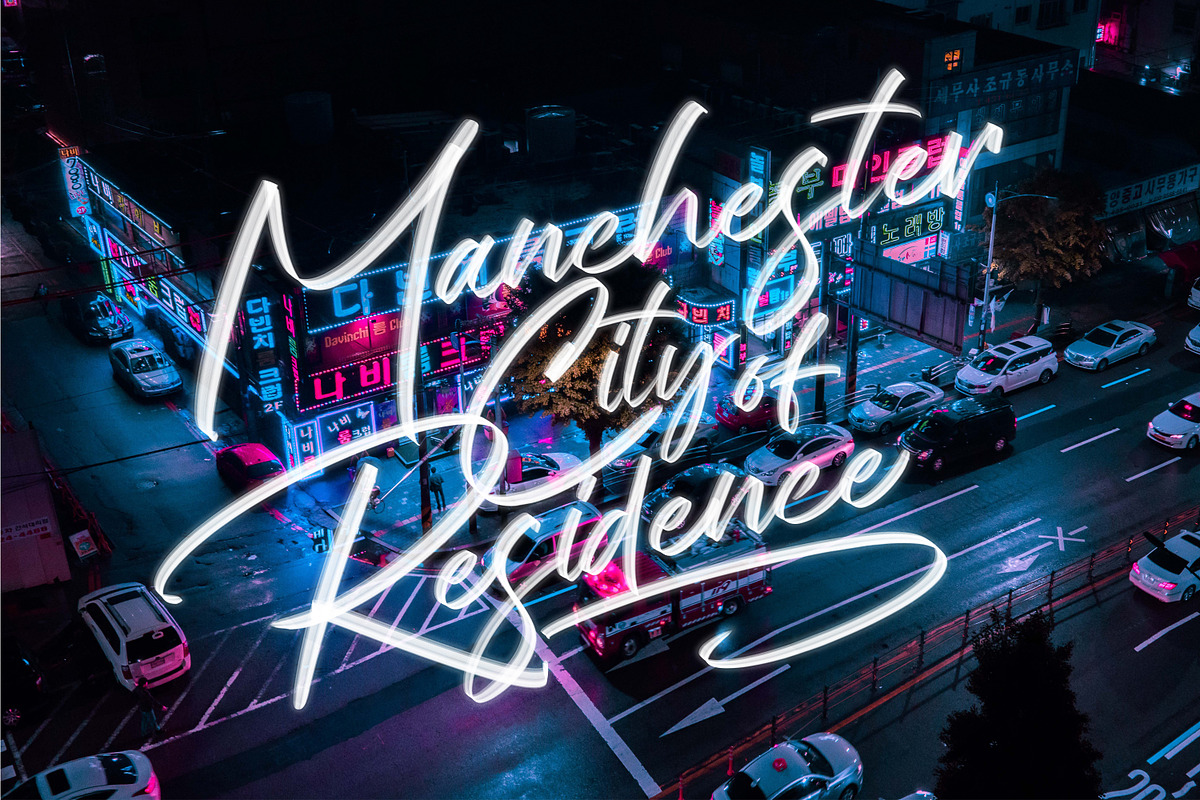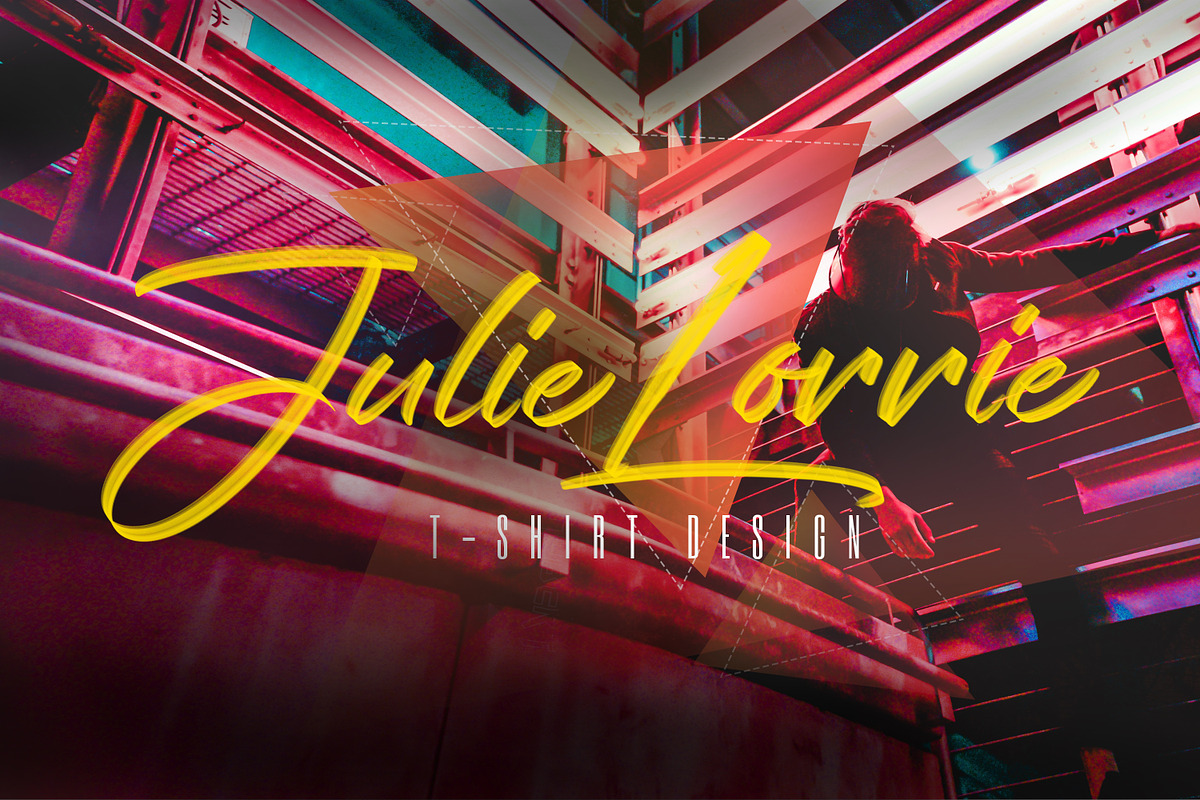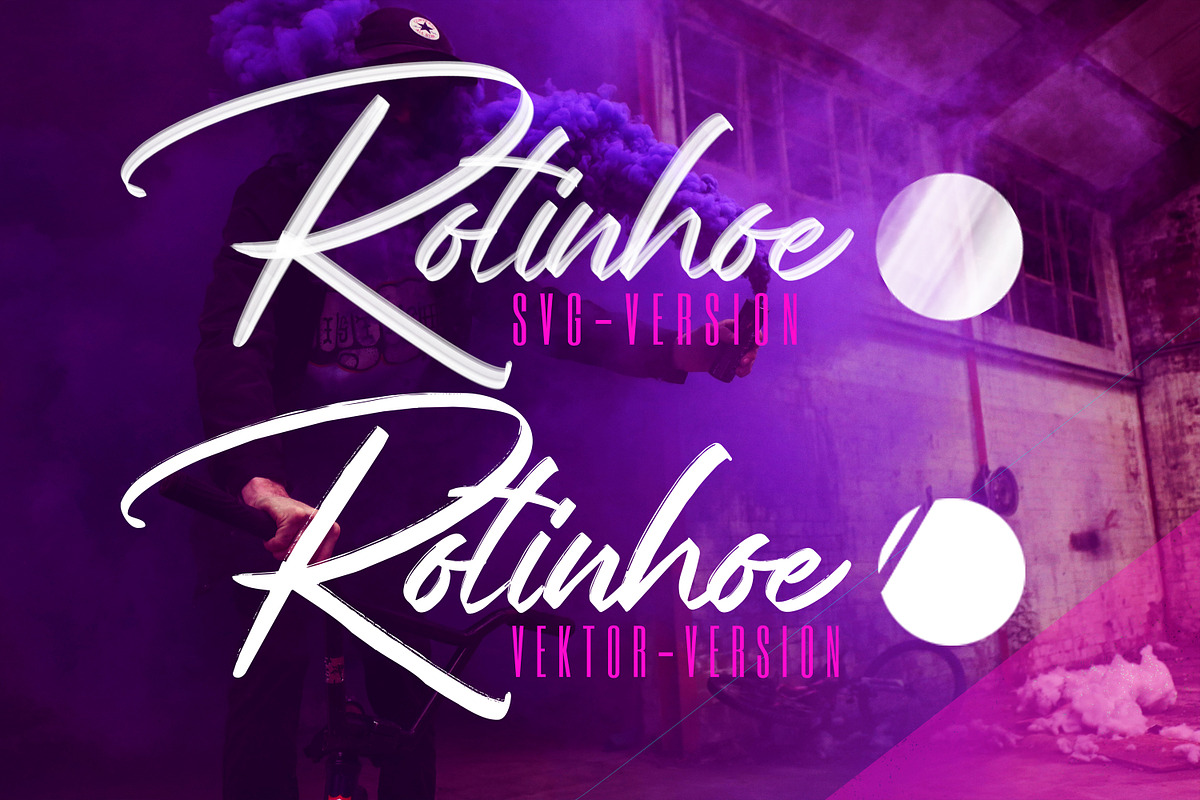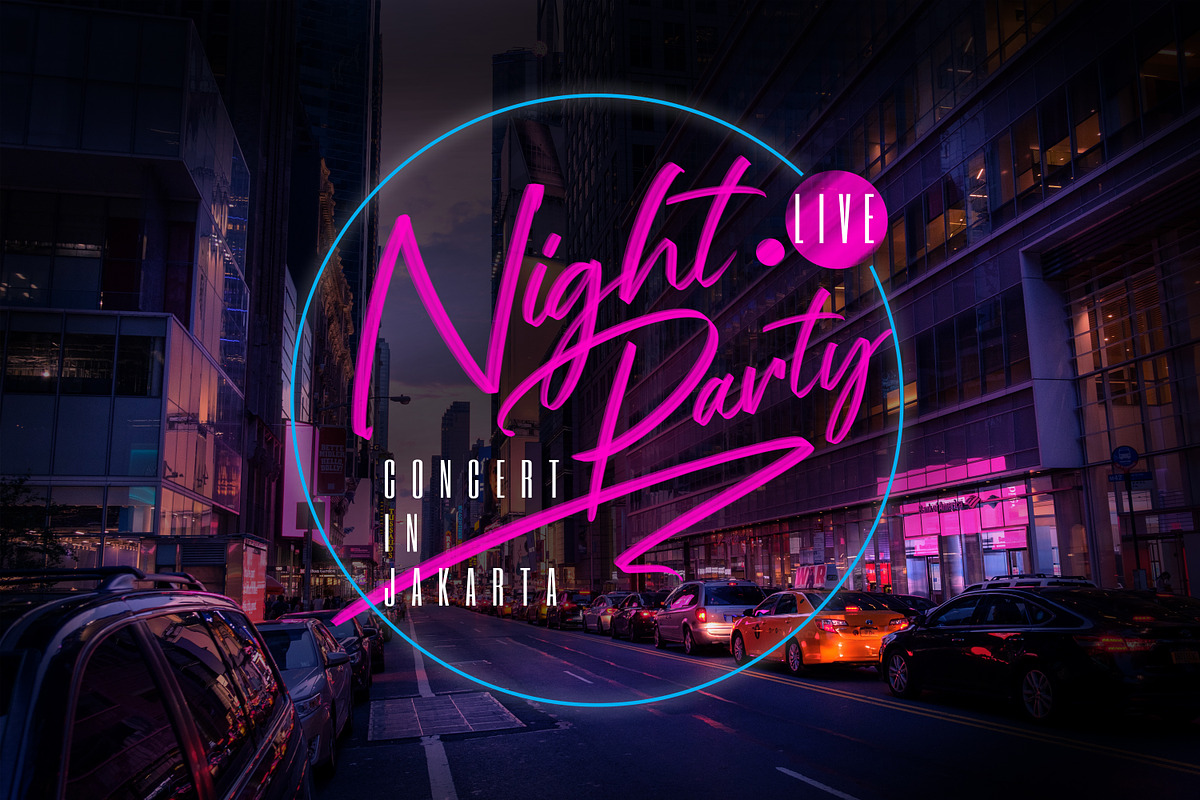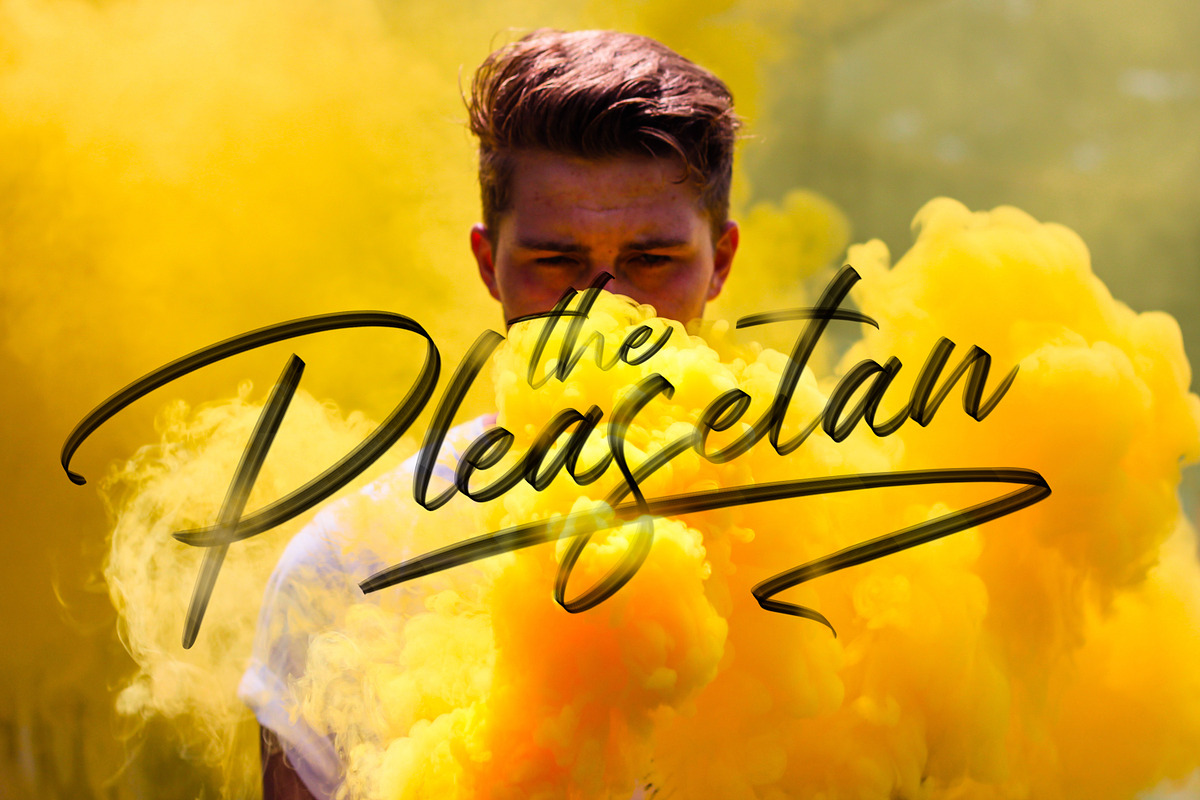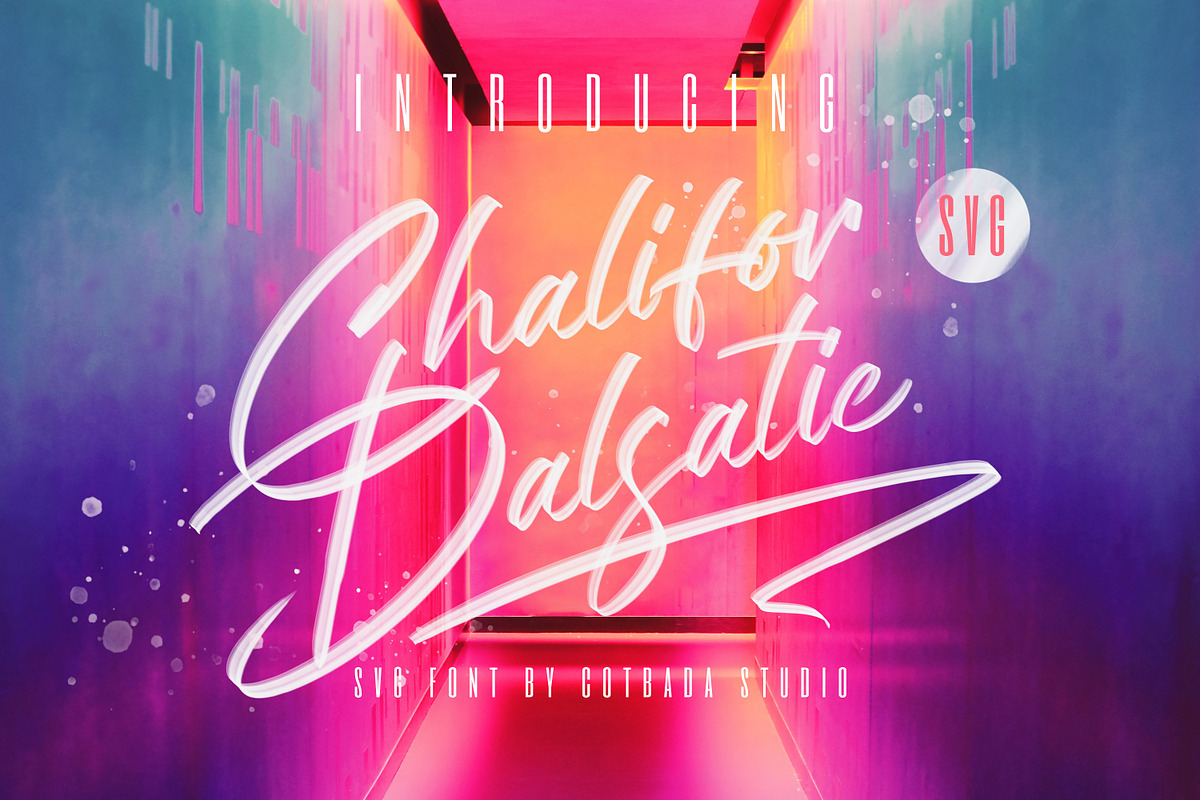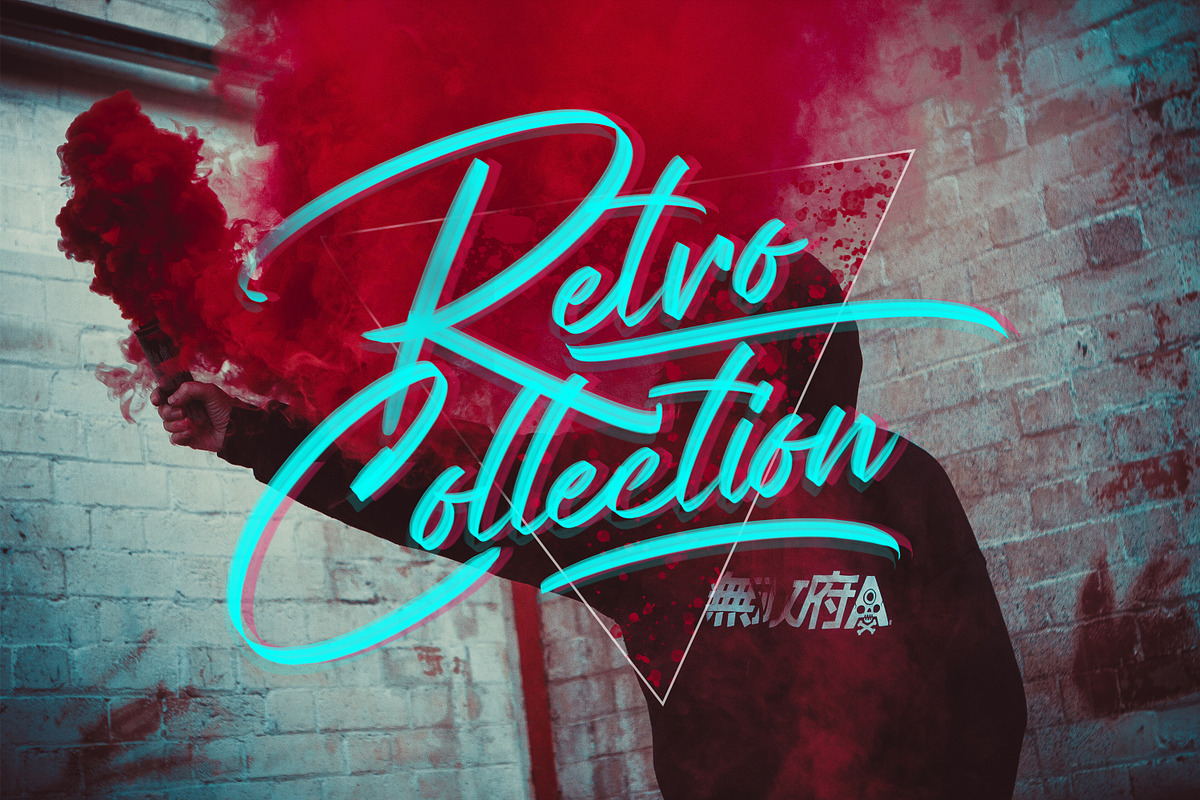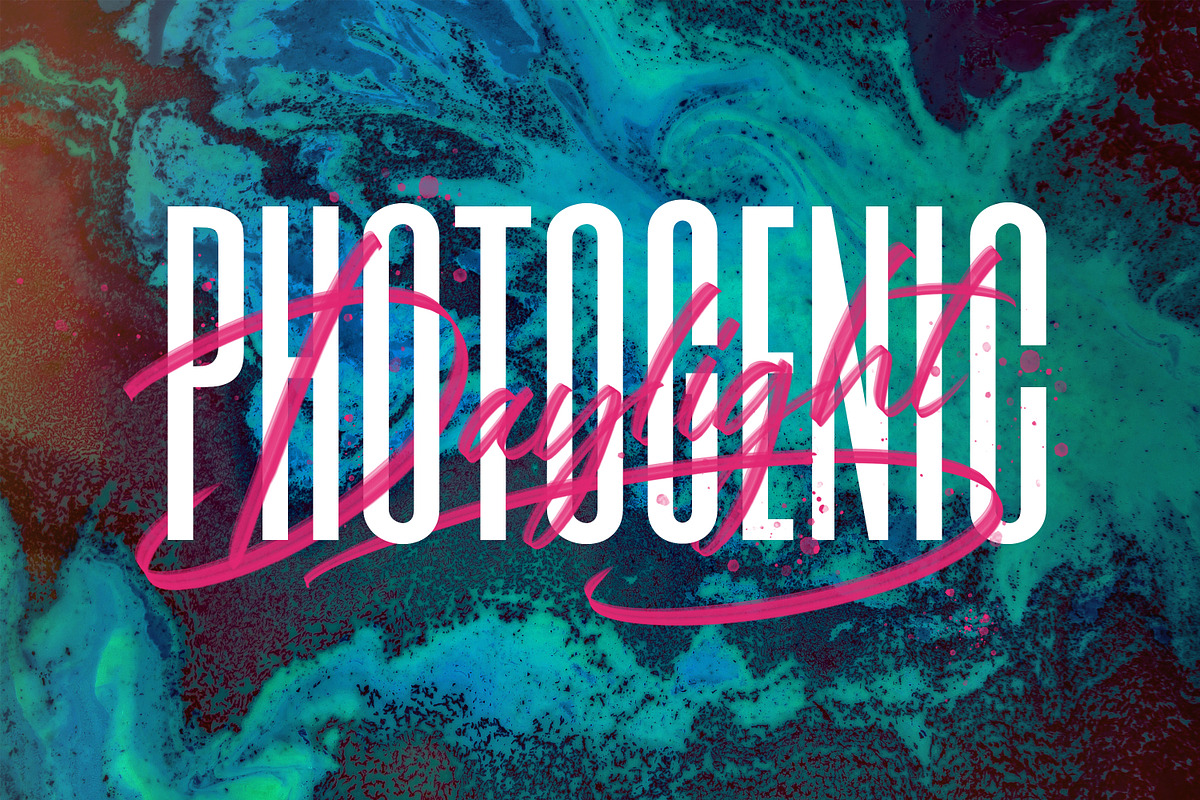
Chalifor Dalsatic SVG FONT
Chalifor Dalsatic SVG FONT is a unique, cool and modern handwritten font. It's hand look style makes it perfect for use in all your design projects be it logos, labels, packaging design, blog headlines, Poster. etc
Why Chalifor Dalsatic SVG FONT is worth a look
Chalifor Dalsatic SVG FONT by Cotbadastudio fits naturally into Branding, posters, packaging, typography.